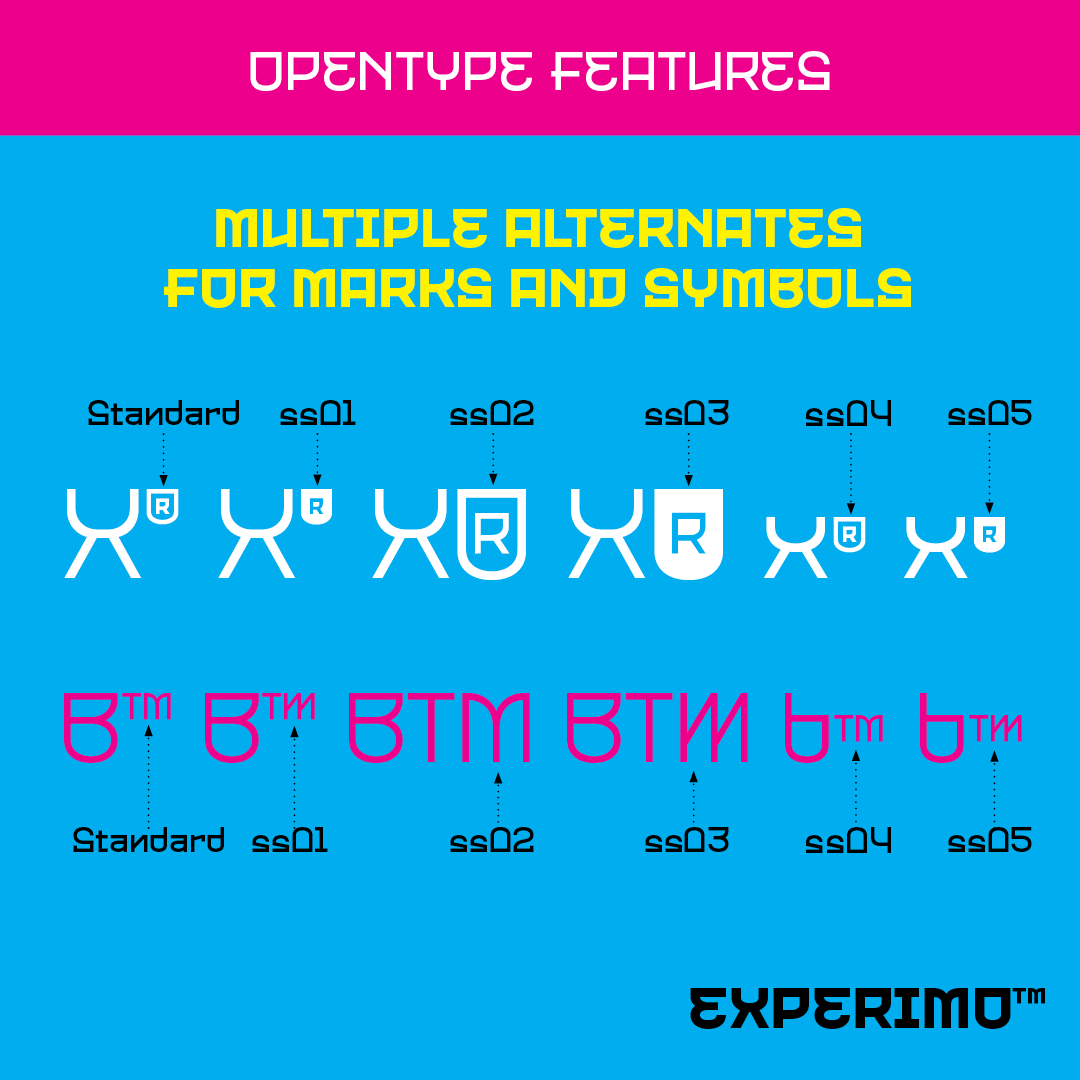
Experimo™ Display Sans Serif–Starter Pack C (Desktop + Web Fonts)
Experimo™ is an experimental display sans serif font family that celebrates the juxtaposed contrast between the round and rectangle shapes. This unconventional typeface support most Latin-based and Cyrillic-based languages and feature extensive sets of stylistic alternates. Experimo™ emanates innovative and futuristic vibes yet is eccentric and exciting.
Experimo™ Display Sans comes loaded with Opentype features such as case-sensitive marks, punctuations and mathematic symbols. It also comes with over 100 essential UX/UI icons, each in three design options. These various Opentype features help improve your user experience, streamline your workflow, and unlock a broader range of typography details you can choose for your design. If your packaging design, infographic, logo design, print design, movie title sequences and digital projects call for an experimental typeface, give Experimo™ a try today!
FEATURE HIGHLIGHTS:
Come with over 1,325 glyphs
100 UX/UI icons, each coming in 3 styles (a total of 240 icons)
Case-sensitive marks, punctuations, and math symbols
Support 200+ Latin-based and Cyrillic-based languages. (See Experimo™ glyphs table for details)